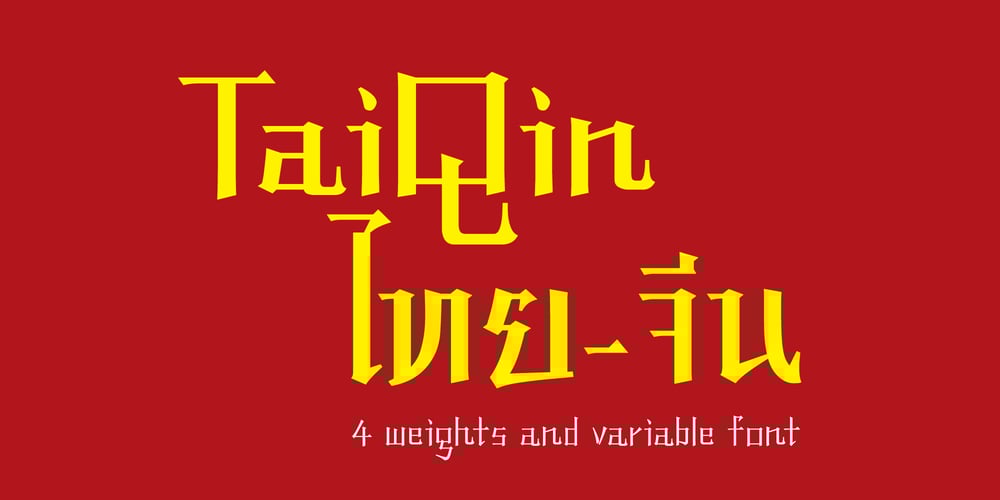
Tai Qin Font Family was designed by Pornthep Luckanawat and published by ComGlyph. Tai Qin contains 5 styles and family package options. TaiQin is inspired by Chinese calligraphy to design both English and Thai typefaces. It offers 4 basic weights and a variable font. In addition, I have also designed alternatives for certain Thai glyphs.